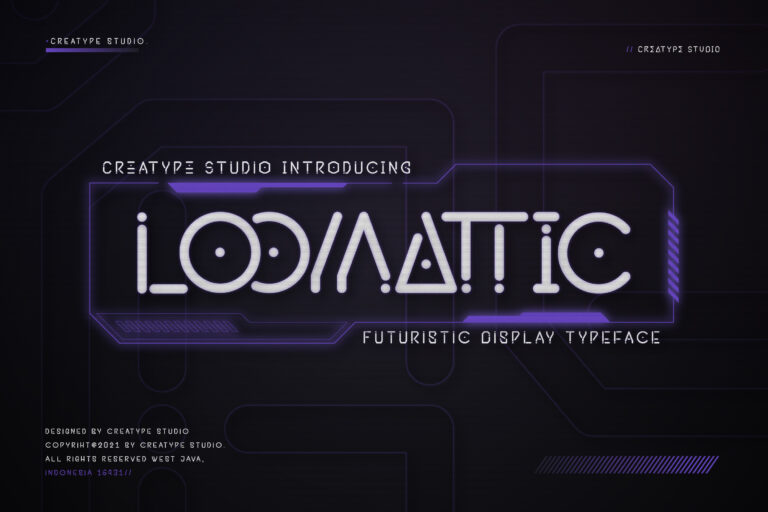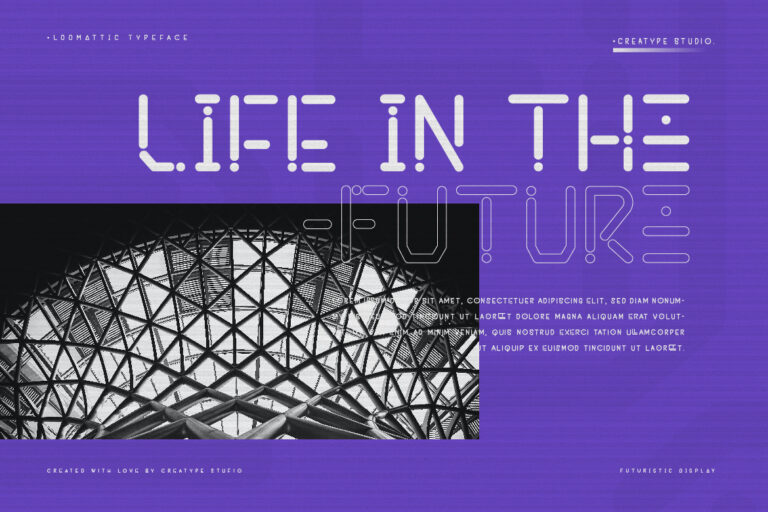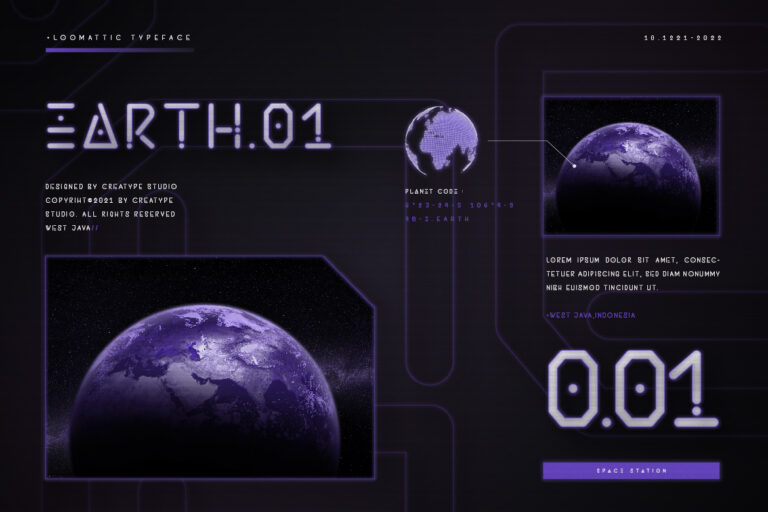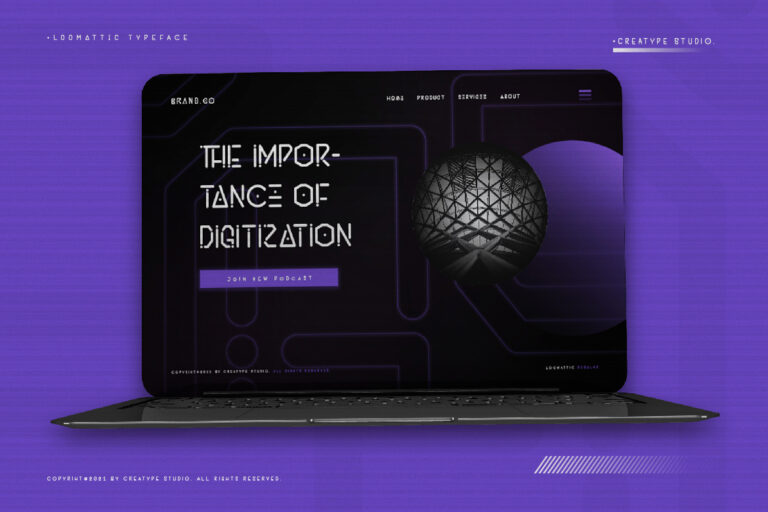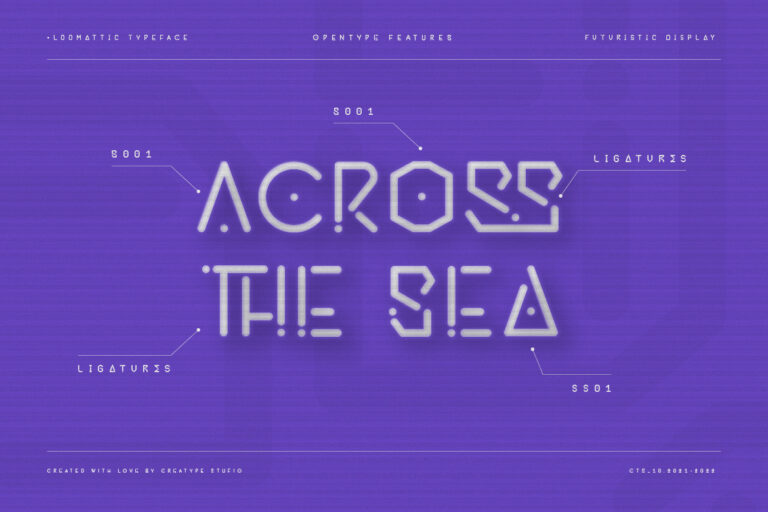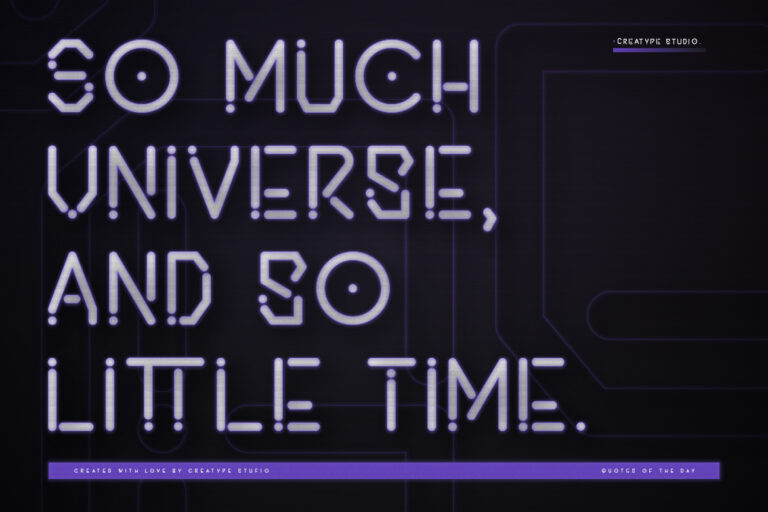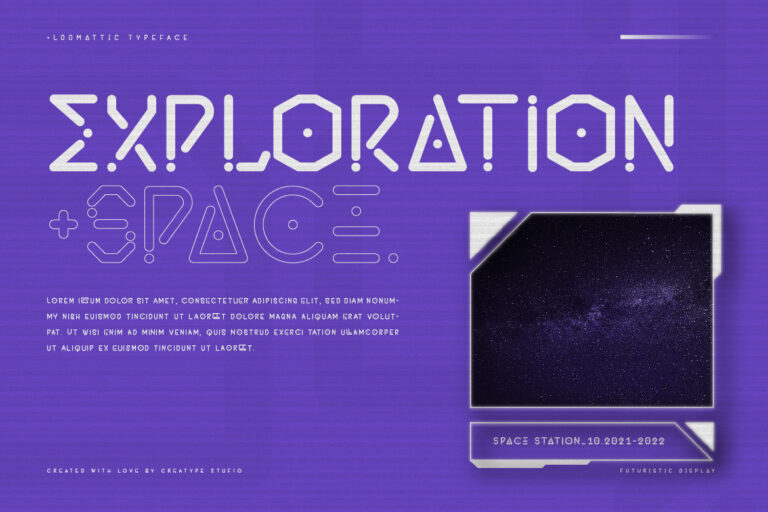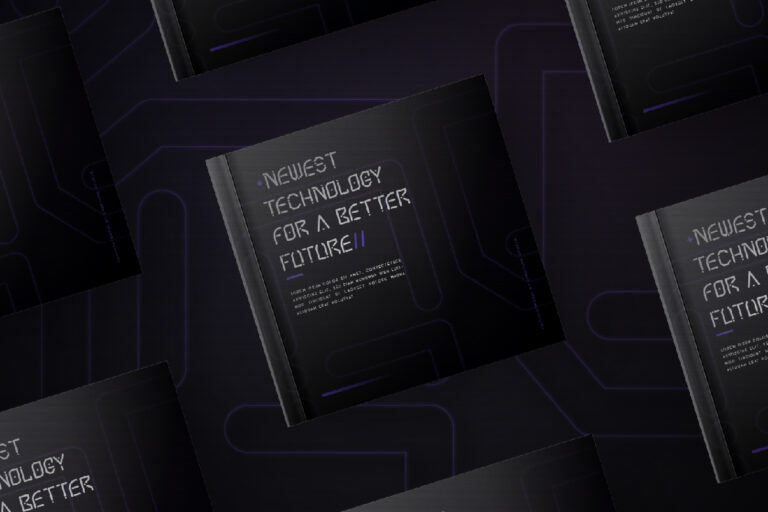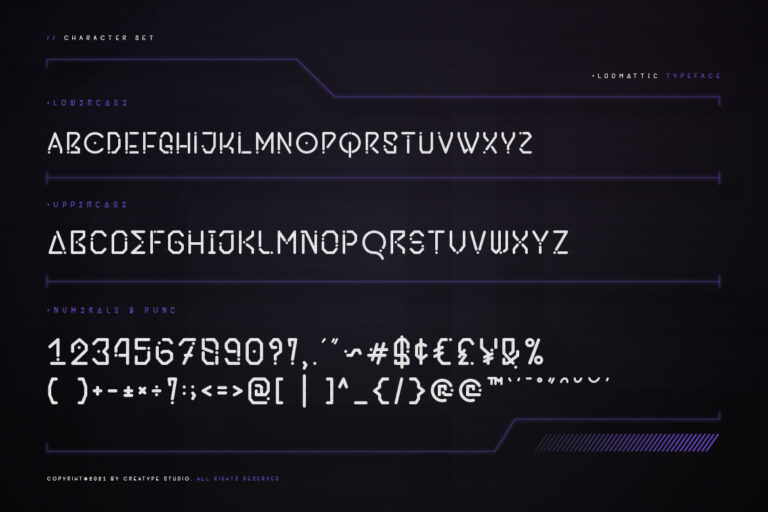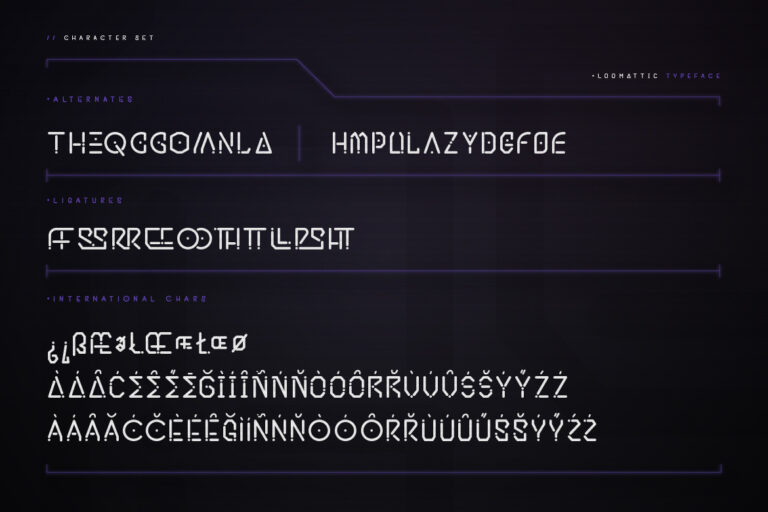
Loomattic is a futuristic display typeface that is perfect for works or products such as technology, sci-fi, science, and any type of project that requires a futuristic feel.
Loomattic Futuristic Display